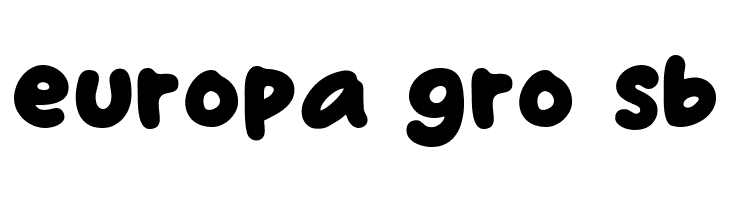
A playful, bold font with rounded, bubbly characters.
A playful, bold font with rounded, thick strokes and a friendly appearance.
A bold, playful handwritten font with smooth, rounded characters.